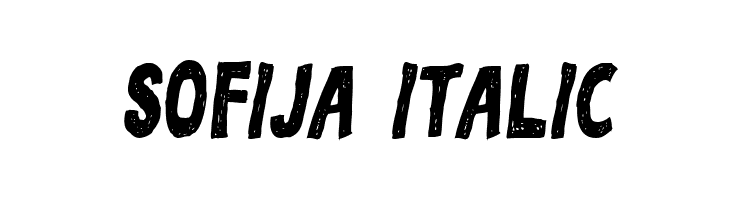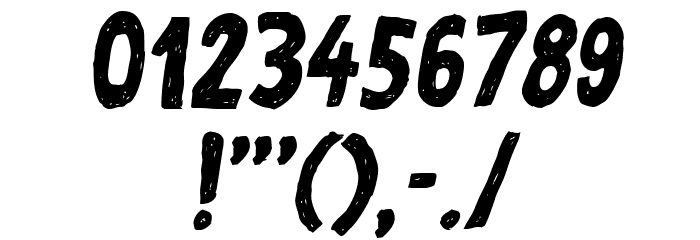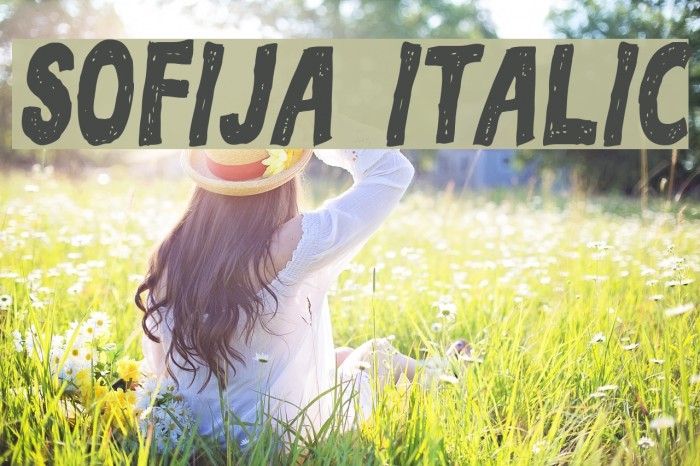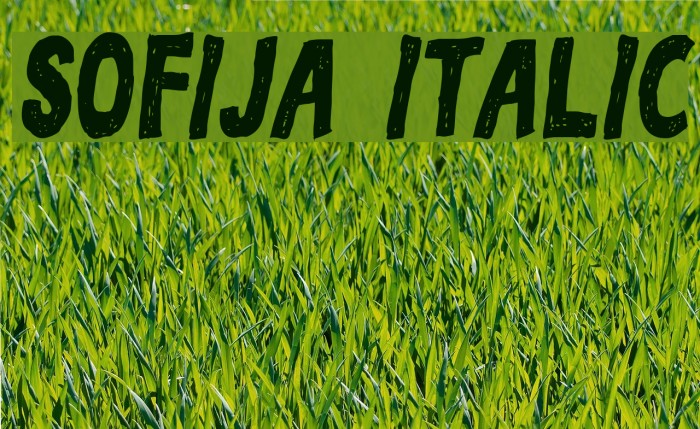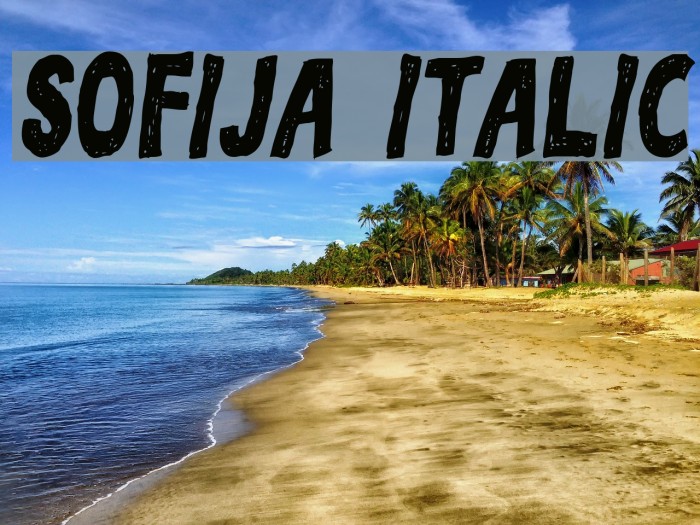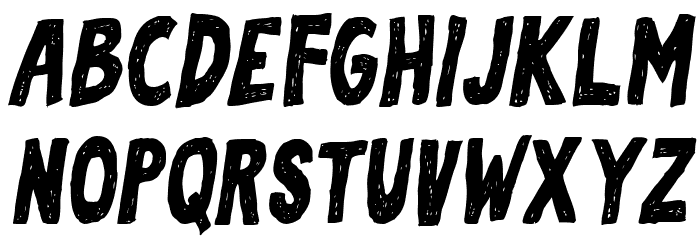
Sofija Italic Font
This font features a bold, hand-drawn style with a textured appearance, giving it a dynamic and energetic feel. The characters are slightly slanted, adding a sense of movement and informality. The strokes are thick and uneven, creating a playful and artistic vibe. The font is highly legible, with distinct and well-defined characters that maintain clarity despite the textured design. It includes a full set of uppercase and lowercase letters, numbers, and a variety of punctuation marks, making it versatile for different design needs.
A bold, textured, hand-drawn font with a playful and dynamic style.
• Proposed Projects: Ideal for creative projects such as posters, album covers, branding for artistic ventures, and any design requiring a bold, informal touch.
• Category: Decorative/Display
• Contrast: Medium
• Overall Style: Decorative
• Use Case: Headlines, Logos, Posters